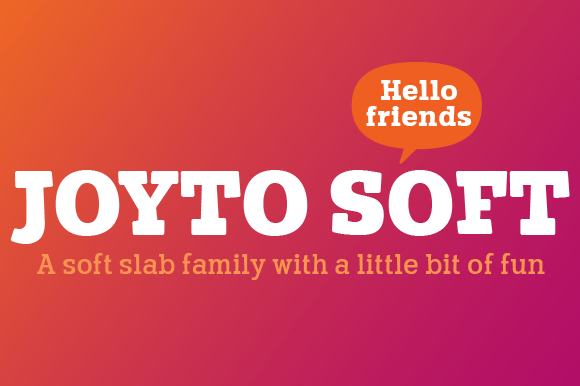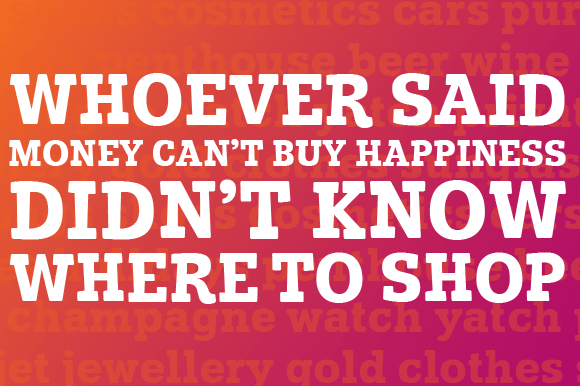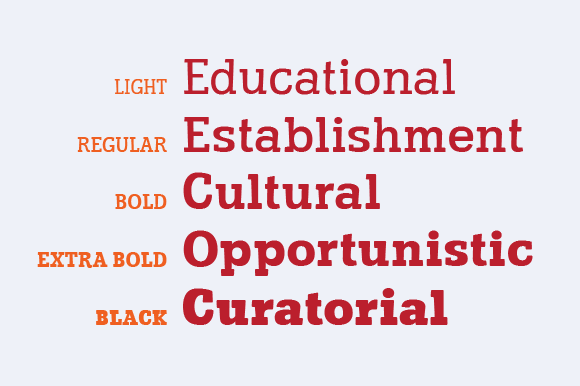
When Words Come Alive: The Magic of Typography
As a designer, there’s nothing quite like the thrill of seeing a project come together. You’ve poured your heart and soul into every detail, from the color palette to the font selection. And then, it happens – the words on the page spring to life, and your message shines through in a way that’s both beautiful and effective.
One of the secrets to making this magic happen is choosing the right font. That’s where Joyto Soft Font comes in – a slab serif family of five weights that’s as quirky as it is legible. With its soft edges and uneven thickness, Joyto Soft Font adds a warm and fun touch to any design, making it perfect for display, packaging, and so much more.
For designers, the value of Joyto Soft Font lies in its versatility and charm. Whether you’re working on a children’s book, a restaurant menu, or a product label, this font is sure to bring a smile to your audience’s face. So why settle for a generic font when you can add a touch of personality to your design with Joyto Soft Font?
Key Features of Joytokey Soft Font
- Unique Characteristics: This font is designed with a unique and stylish layout, making it ideal for use in digital signage, presentations, and other visual media.
Designer Review: Joyto Soft Font
Overall, I’d say Joyto Soft Font is a solid addition to any designer’s toolkit. It’s ✨ elegant and versatile, with a clean, modern aesthetic that works well in a variety of contexts.
Here are some of its standout features:
- ✨ Highly legible: Joyto Soft Font is easy to read, even at small font sizes, making it perfect for body text and other content-heavy applications.
- ✨ Versatile: The font works well in both print and digital formats, and its clean lines make it suitable for a wide range of industries and styles.
- ✨ Well-suited for titles: The font’s elegant, refined feel makes it a great choice for titles and headings, where you want to make a statement without overpowering the surrounding content.
- ⚠️ Limited character set: While the font is well-suited for Latin-based languages, it may not be as effective for languages with non-Latin scripts.
- ⚠️ Not ideal for display use: While Joyto Soft Font works well in smaller font sizes, it may not be the best choice for larger display fonts, where a more dramatic or attention-grabbing font may be more effective.
Overall, I’d give Joyto Soft Font 4 out of 5 stars. It’s a solid, reliable choice for designers looking for a clean, modern font that’s easy to read and versatile enough to work well in a variety of contexts.
Getting the Most Out of Joyto Soft Font
For the best results, use Joyto Soft Font in combination with other fonts to create a visually appealing and balanced design.
Experiment with different font sizes and styles to create emphasis and hierarchy in your design.
Use Joyto Soft Font for:
1. Creative projects such as invitations, brochures, and posters.
2. Personal branding and marketing materials such as business cards and letterheads.
3. Digital designs such as social media graphics and website headers.
Alternatives to Joyto Soft Font for Designers
1. Museo Sans
Museo Sans is a modern sans-serif font that is highly legible and versatile. It is ideal for use in digital design, particularly for headings and titles. Museo Sans is more geometric and clean compared to Joyto Soft Font, making it a better choice for minimalist designs.